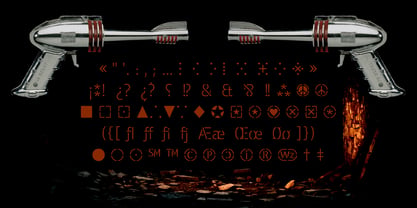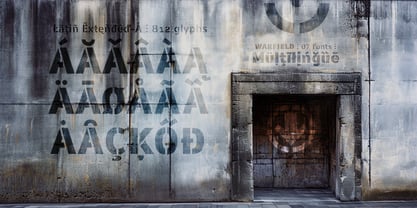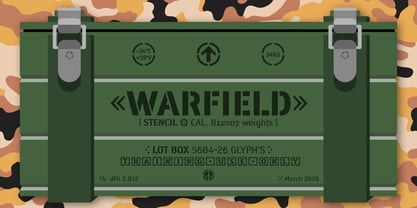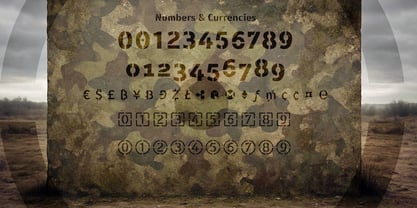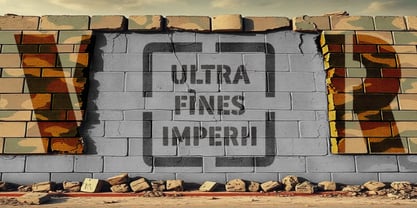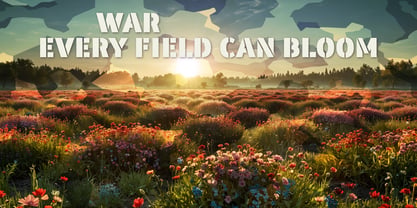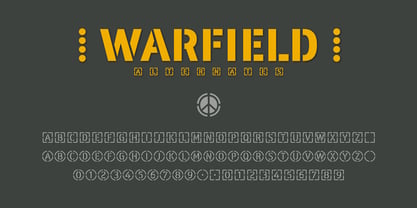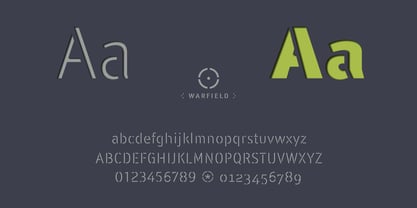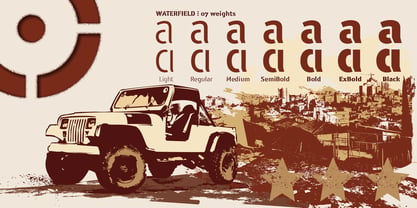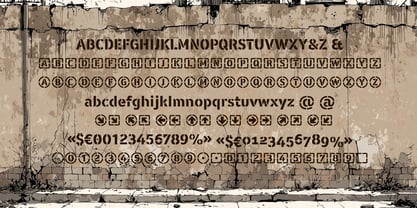
Warfield
by deFharo
The Warfield Font Family was designed by Fernando Haro and published by deFharo. Warfield contains 7 styles and family package options. More about this family
Warfield is, by definition, a stencil typeface, drawing from its military and industrial heritage, but shedding any aggressiveness to embrace absolute legibility. It is a contemporary sans-serif typeface that is not only read but also felt, proudly displaying the breaks, bridges, and interruptions that define it, giving it a straight and solemn bearing. From the ethereal subtlety of Light to the resounding authority of Black, Warfield offers seven weights designed to withstand any creative battle and modulate the tone of voice.